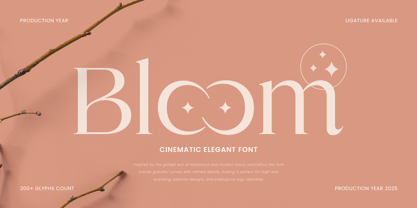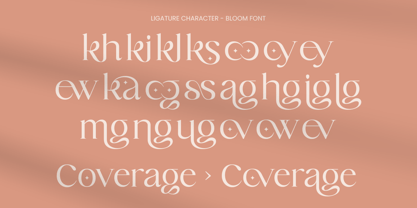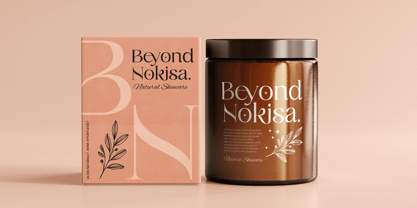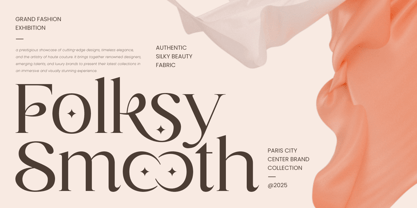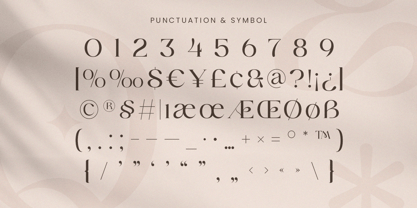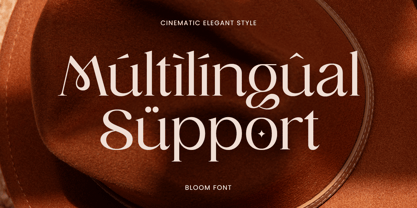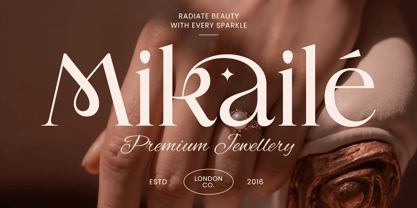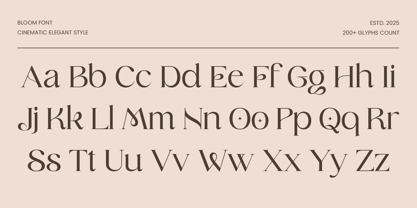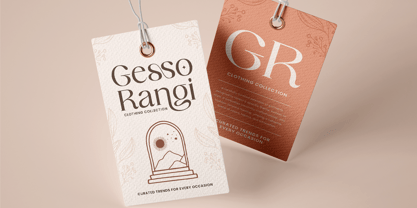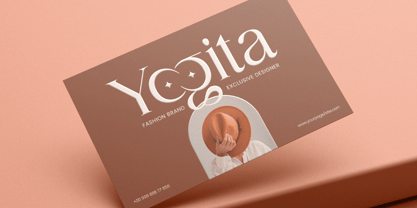
Bloom is an elegant serif display font inspired by classic cinema and luxury editorial typography. With its refined letterforms, graceful curves, and high-contrast strokes, Bloom adds a touch of drama and class to any project. Perfect for movie titles, fashion branding, wedding invitations, magazines, and upscale packaging, it creates visual storytelling with elegance and clarity.
Whether you're crafting a high-end logo or designing captivating editorial layouts, Bloom delivers a strong presence with a delicate flair. Its timeless aesthetic allows it to blend effortlessly into both vintage-inspired and contemporary visuals. Bring your designs to life with Bloom—a cinematic font that radiates beauty and sophistication in every detail.
Bloom Cinematic Elegant Font Features:
Elegant Serif Display Style Ideal for Fashion, Film, Branding & Editorials
Punctuation, Numbers, and Symbols
Uppercase and Lowercase
Multilingual Characters available for: Afrikaans, Albanian, Asu, Basque, Bemba, Bena, Breton, Chiga, Cornish, Dutch, English, Estonian, Filipino, Finnish, Friulian, Galician, German, Gusii, Indonesian, Irish, Italian, Kabuverdianu, Kalenjin, Kinyarwanda, Luo, Luxembourgish, Luyia, Machame, Makhuwa-Meetto, Makonde, Malagasy, Manx, Morisyen, North Ndebele, Nyankole, Oromo, Portuguese, Quechua, Romansh, Rombo, Rundi, Rwa, Samburu, Sango, Sangu, Scottish Gaelic, Sena, Shambala, Shona, Soga, Somali, Spanish, Swahili, Swedish, Swiss.